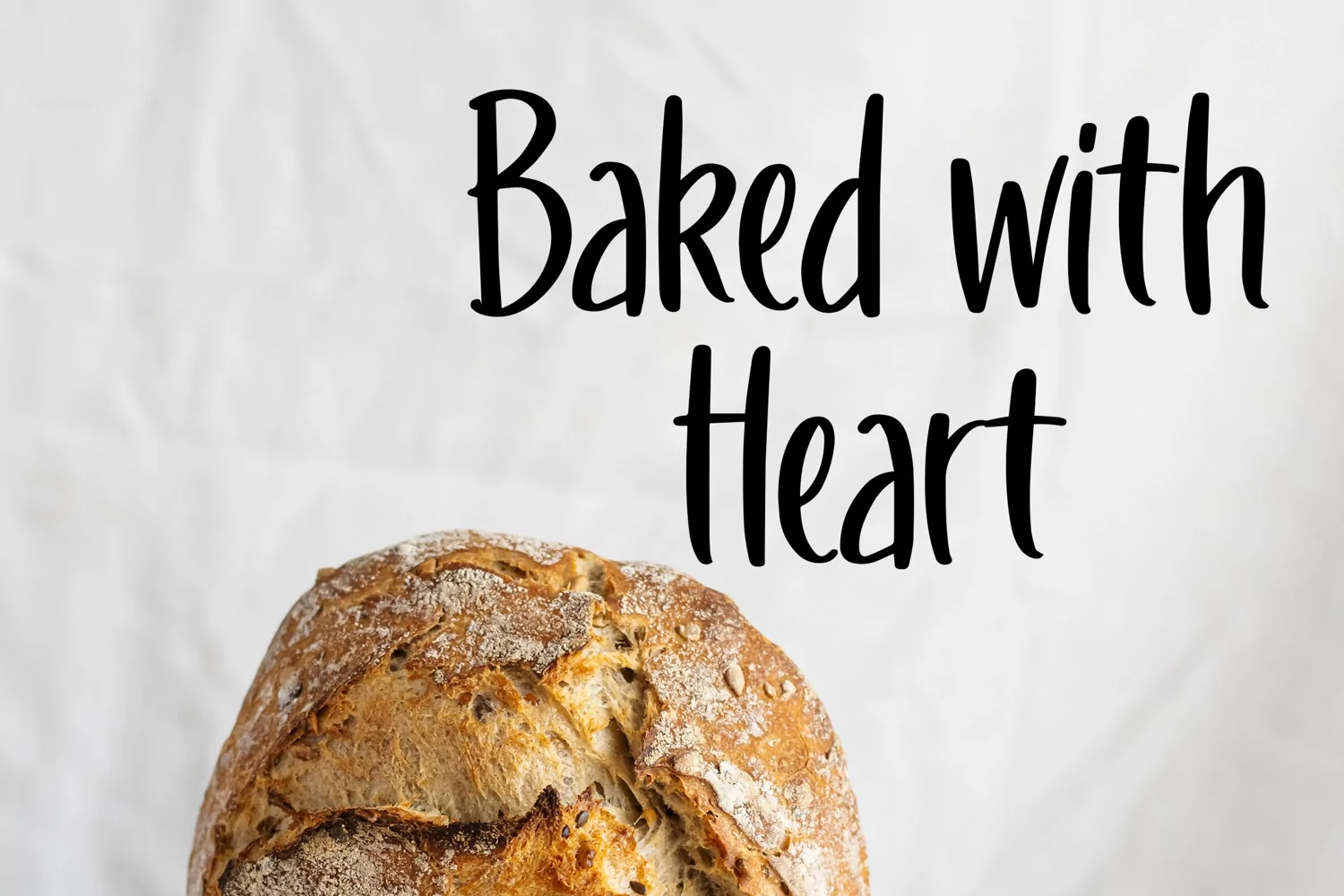
Roasting Bakery - Quirky Font that contain lowercase, uppercase, symbol, and also support multi language. There’s a lot ligatures in this font. This Font also comes with ligatures, alternates and many more. this font suitable for fashion, branding, catalog and other design what you want.